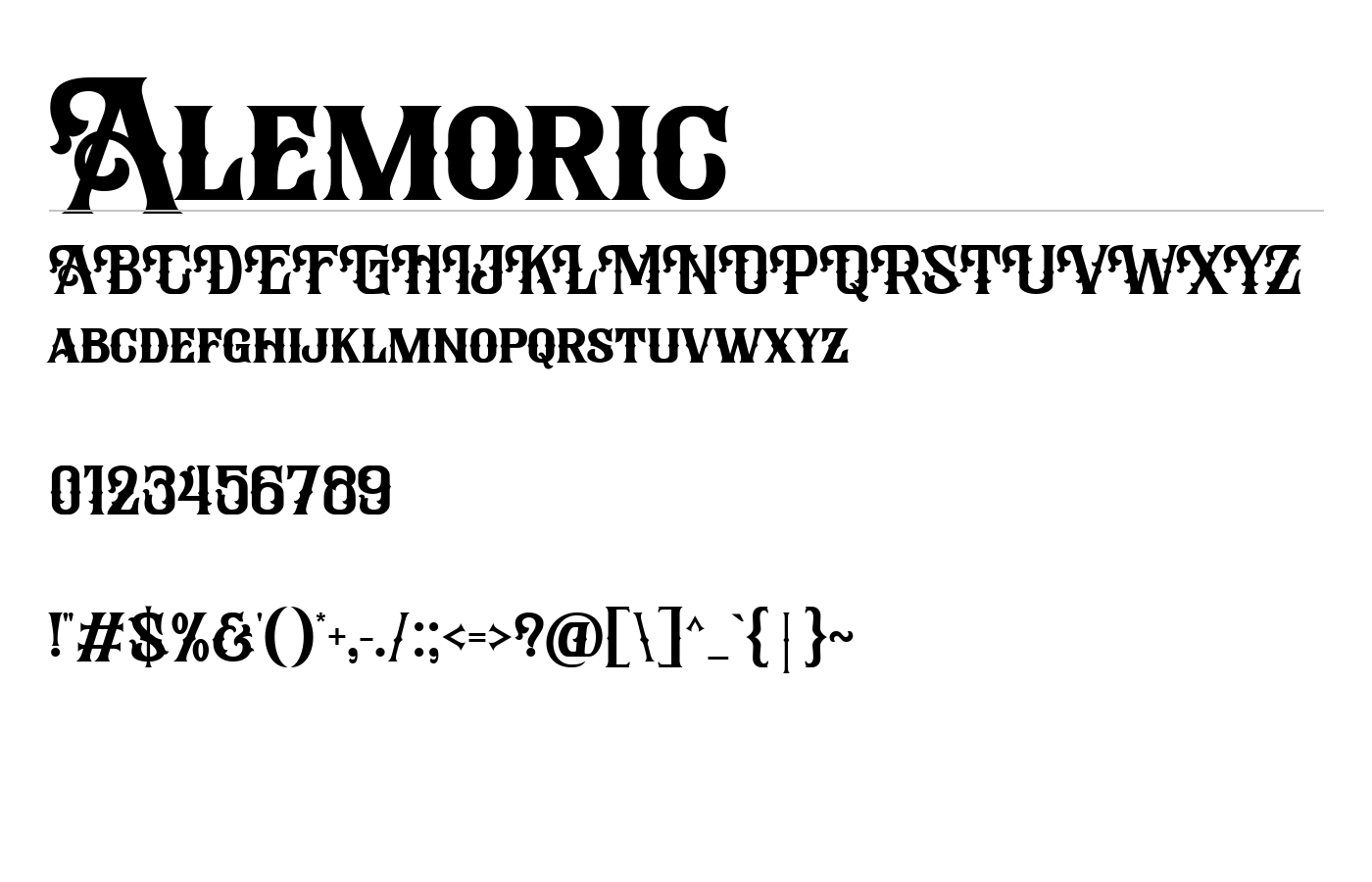
Alemoric is a bold, serif display font with a distinct vintage flair, featuring high contrast between thick and thin strokes and decorative, bracketed serifs that bring a strong, ornamental character to the letters. Its unique, intricate shapes and sturdy structure make it perfect for eye-catching headlines, logos, and branding that seek to convey a sense of tradition, drama, and sophistication. This font works especially well in contexts where a bold, elegant look is desired, such as fashion, editorial titles, and luxury packaging.
Alemoric Font
About Alemoric Font
| Designer | Burhan Afif |